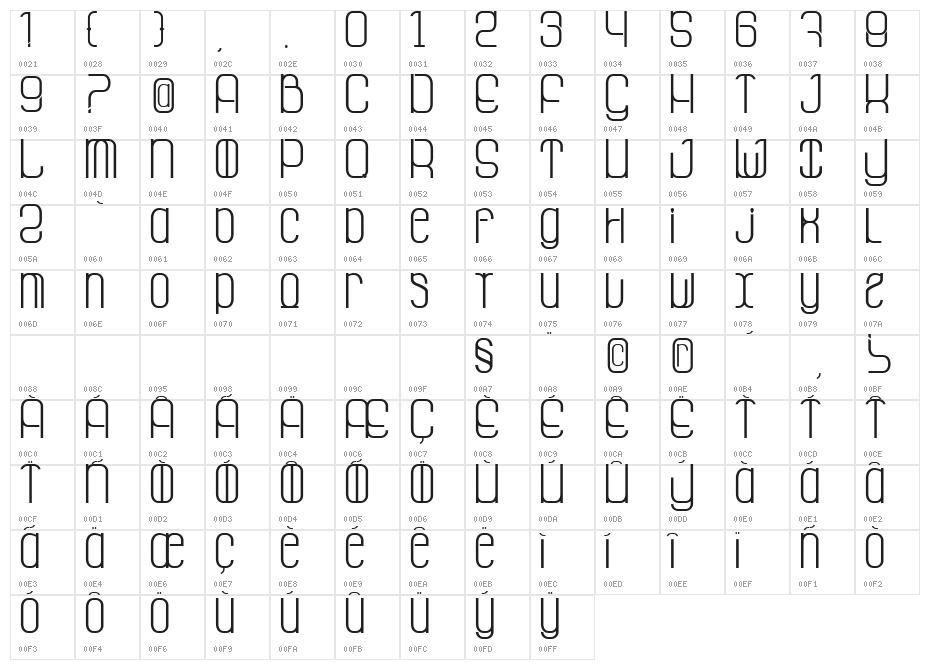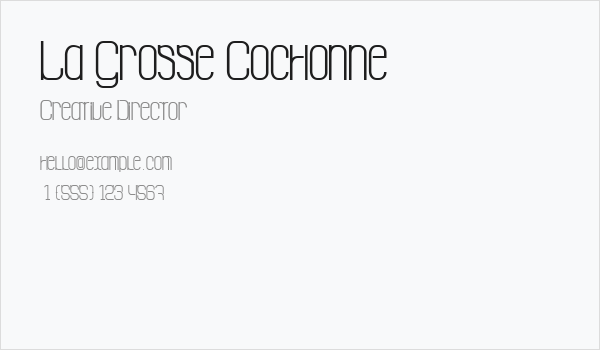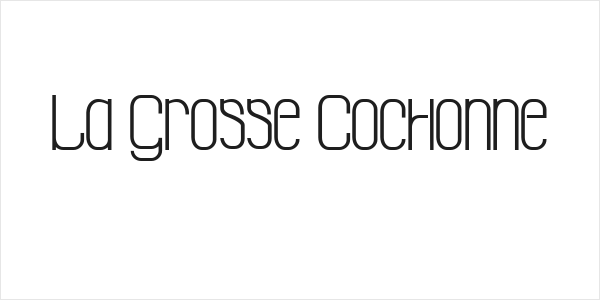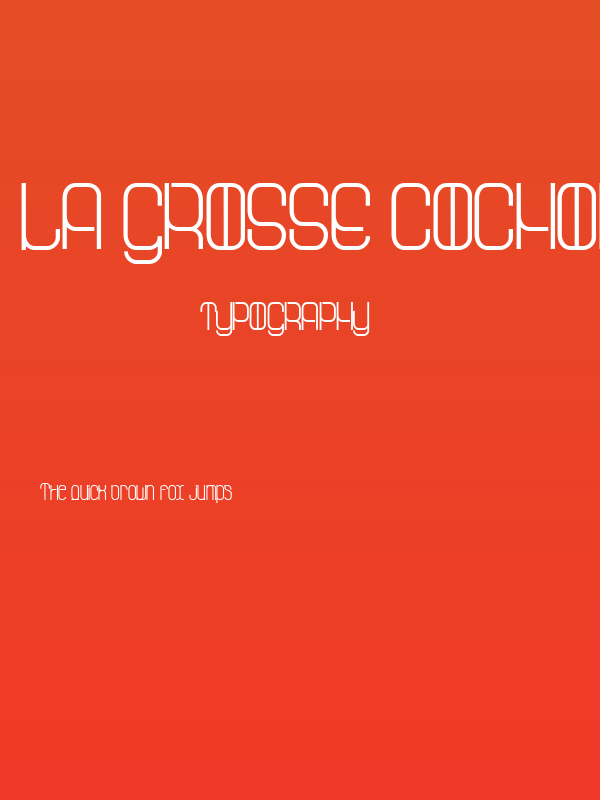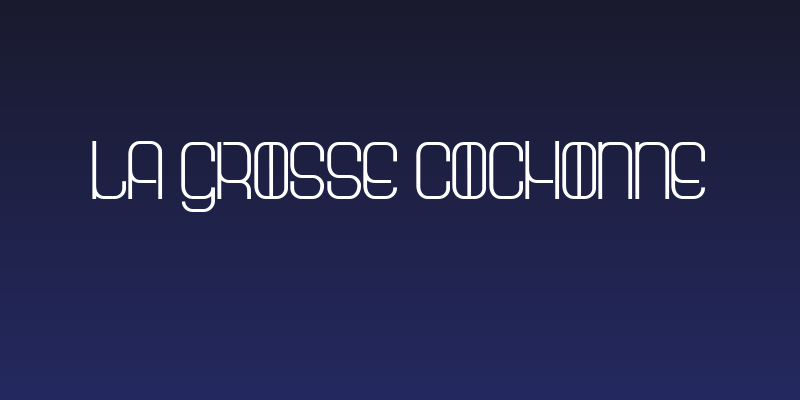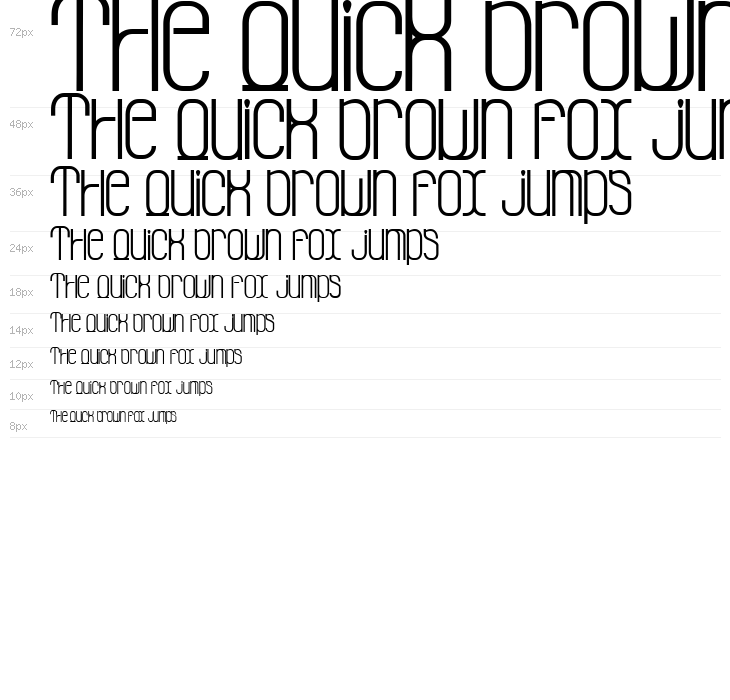
La Grosse Cochonne Font
La Grosse Cochonne Description
This font features a unique and modern design with a geometric and modular structure. The characters are composed of clean, straight lines and rounded edges, creating a futuristic and digital appearance. The uppercase and lowercase letters maintain a consistent height, contributing to a uniform and balanced look. The numerals and special characters follow the same design principles, ensuring cohesion across all glyphs. This font's distinct style makes it suitable for projects that require a contemporary and innovative touch.
| Proposed Projects | Ideal for technology branding, digital media, futuristic posters, and innovative product packaging. |